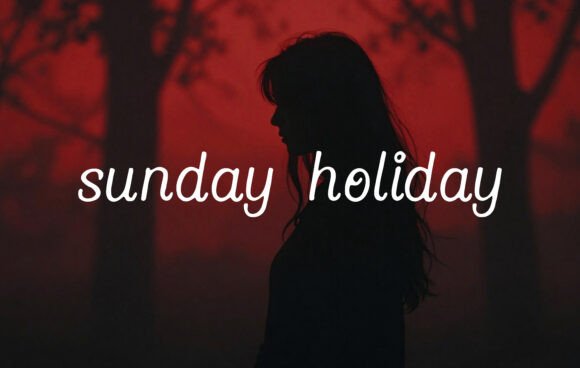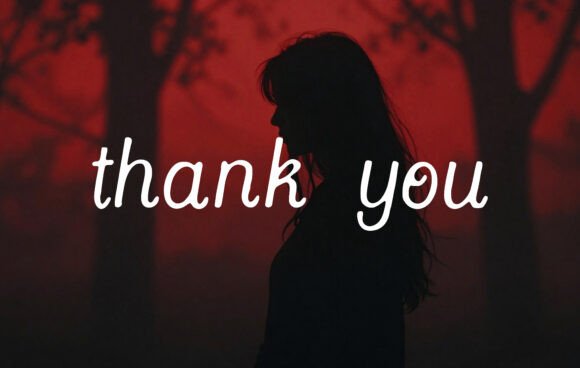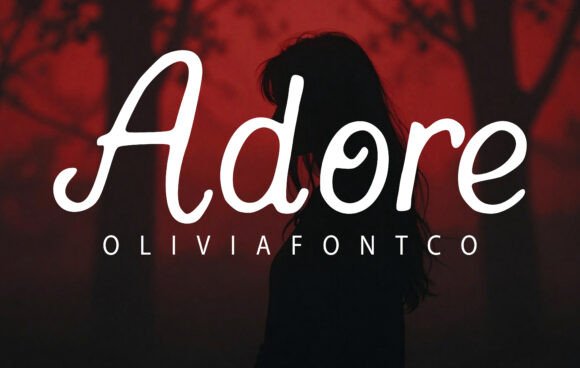
Discover the Elegance of Adore Font: A Monoline Script for Sophisticated Designs
Are you looking for a font that embodies the perfect blend of sophistication and casual elegance? Look no further than the Adore font, a stunning monoline script that exudes romance and modern flair. This beautiful typeface is characterized by its smooth, consistent line weight and graceful transitions, making it a premier choice for high-end branding and editorial design.
What Makes Adore Font Stand Out?
The Adore font is a masterclass in elegant design. Its clean, sweeping curves and timeless appeal make it an ideal choice for projects that demand a professional and heartfelt look. Whether you’re working on wedding stationery, photography watermarks, or luxury lifestyle magazines, the Adore font delivers a level of sophistication that’s hard to match.
Perfect for Wedding Stationery and Editorial Design
Wedding planners, designers, and stationery enthusiasts will love the Adore font for its romantic and whimsical feel. Its smooth lines and flowing curves create a beautiful, eye-catching effect that’s perfect for wedding invitations, save-the-date cards, and other stationery. For editorial designers, the Adore font is a great choice for luxury lifestyle magazines, fashion editorials, and beauty publications.
Versatility at Its Best: Adore Font in Digital and Print Design
One of the standout features of the Adore font is its versatility. In digital design, it serves as a beautiful header that draws the eye without overwhelming the reader. Its clean lines and elegant curves make it perfect for use in website headers, social media graphics, and email marketing campaigns.
Pairing Adore Font with Other Typefaces
For a cohesive design, pair the Adore font with a wide-tracked serif typeface to create a luxurious, editorial hierarchy. This classic combination is perfect for high-end branding, fashion editorials, and luxury lifestyle publications. The contrast between the smooth, monoline script of Adore and the traditional serif font creates a visually appealing effect that’s both elegant and sophisticated.
Adore Font in Fashion and Beauty Branding
The Adore font is also a great choice for fashion and beauty branding, where it can be used for packaging, labels, and promotional materials. Its elegant curves and sophisticated feel make it perfect for high-end fashion brands, beauty companies, and lifestyle products.
Why Choose Adore Font?
So why choose the Adore font for your next design project? Here are just a few reasons:
- Elegant and sophisticated: The Adore font exudes romance and modern flair, making it perfect for high-end branding and editorial design.
- Versatile: Use the Adore font in digital and print design, from website headers to wedding stationery and luxury lifestyle magazines.
- Clean and timeless: The Adore font’s smooth lines and elegant curves create a beautiful, eye-catching effect that’s both professional and heartfelt.
In conclusion, the Adore font is a stunning monoline script that embodies the perfect blend of sophistication and casual elegance. Its smooth lines, elegant curves, and timeless appeal make it a premier choice for high-end branding and editorial design. Whether you’re working on wedding stationery, luxury lifestyle magazines, or fashion and beauty branding, the Adore font delivers a level of sophistication that’s hard to match. So why wait? Discover the elegance of Adore font for yourself and take your design projects to the next level.